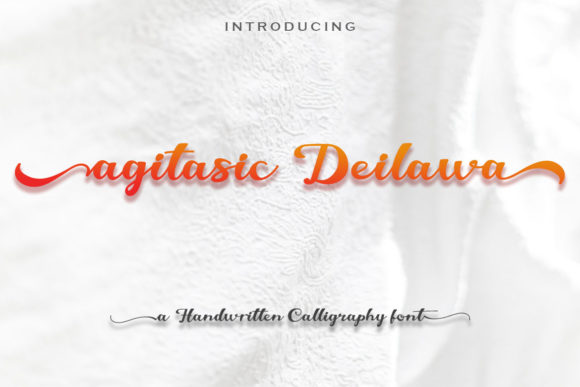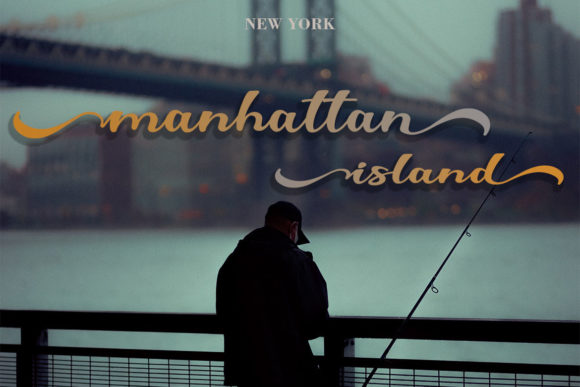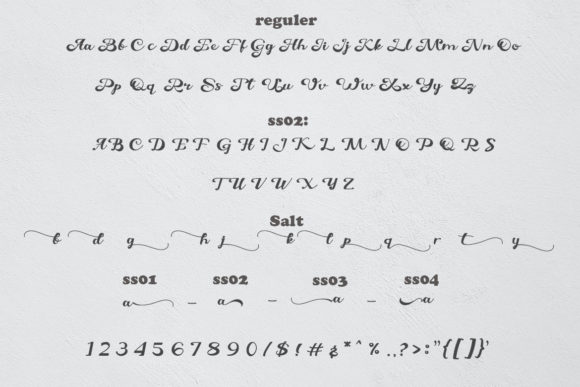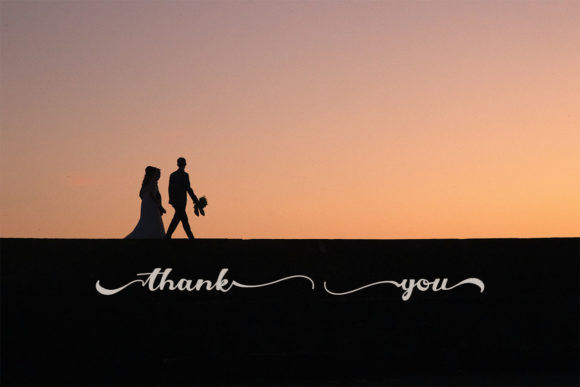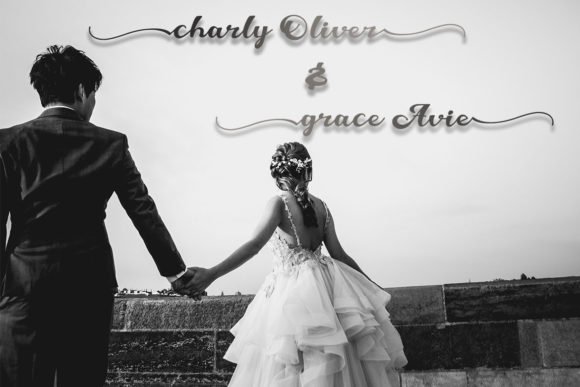
Agitasic Deilawa Font
About Agitasic Deilawa Font
Agitasic Deilawa is a delicate, elegant and flowing handwritten font. It has beautiful and well balanced characters and as a result, it matches a wide pool of designs. Agitasic Deilawa is PUA encoded which means you can access all glyphs and swashes with ease!